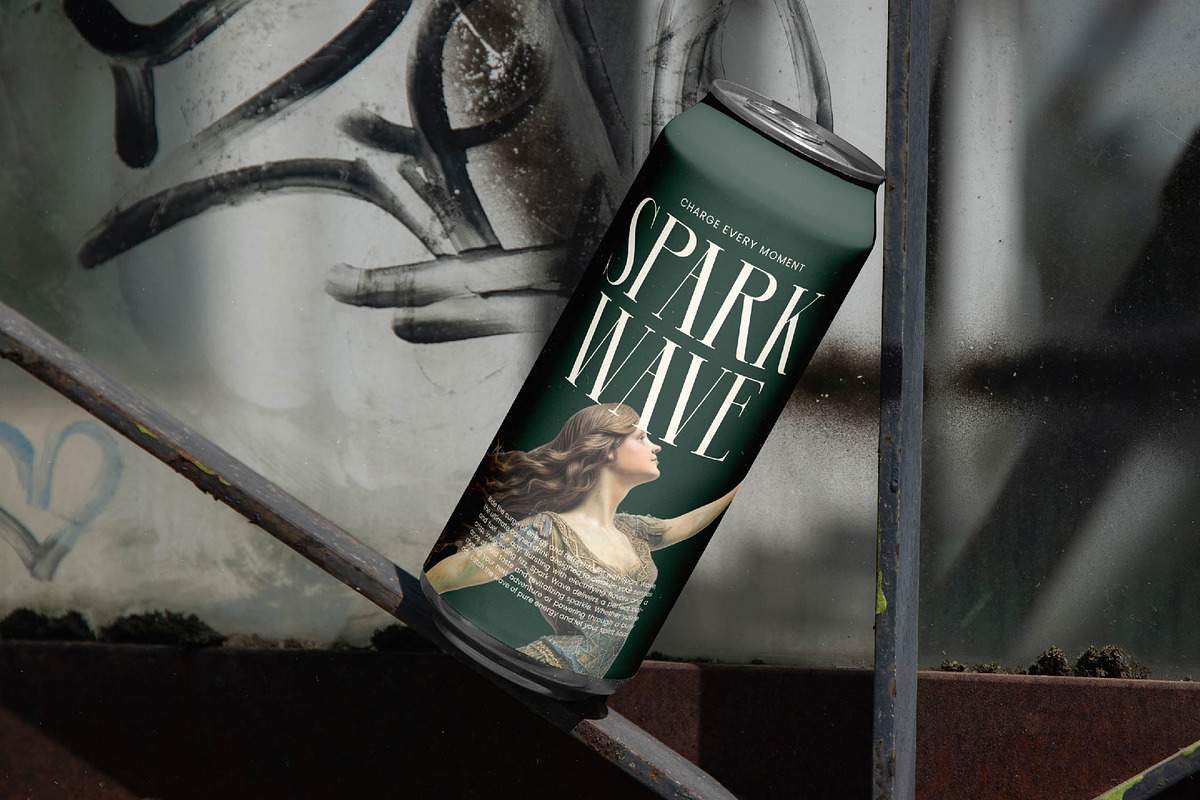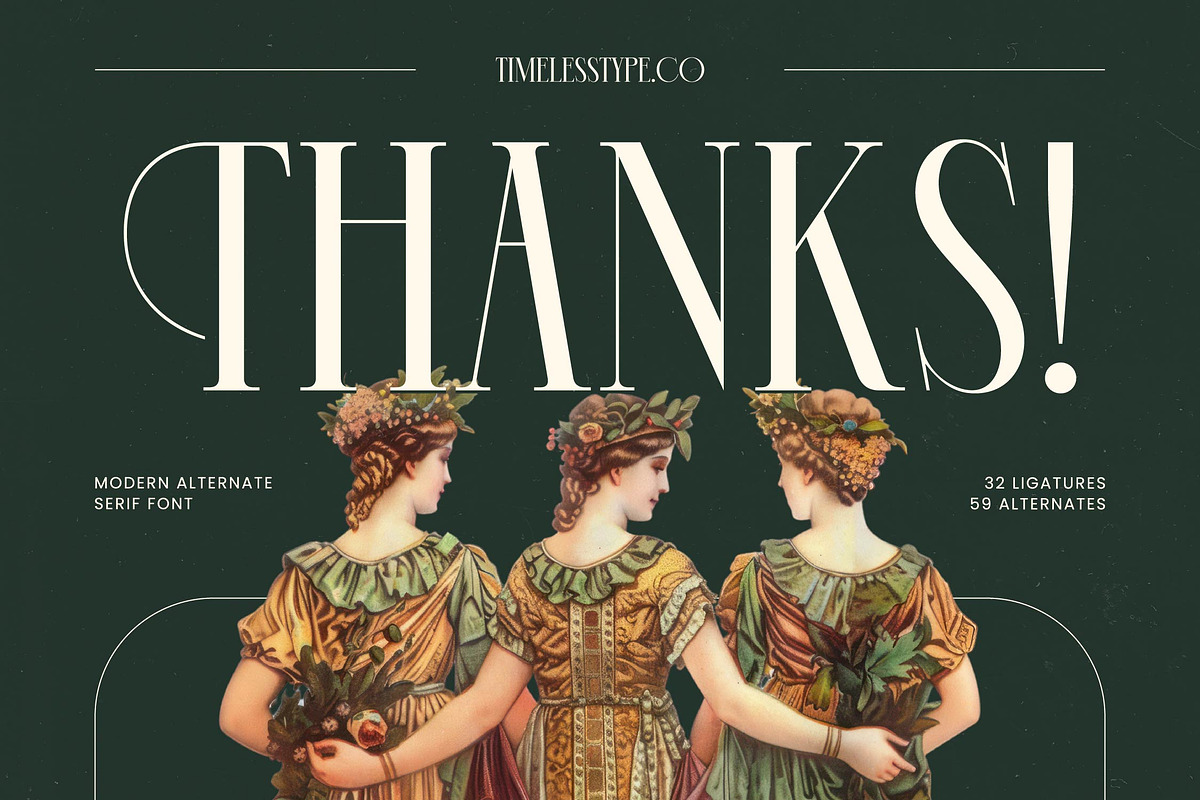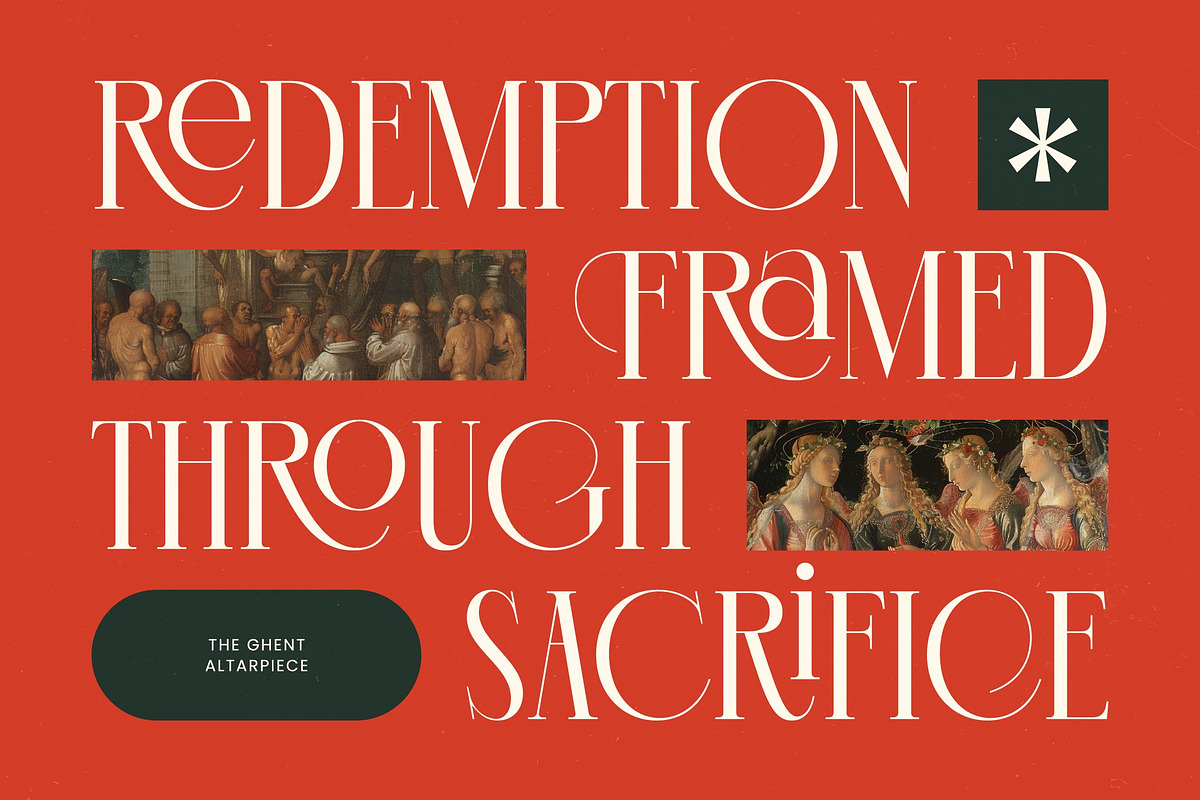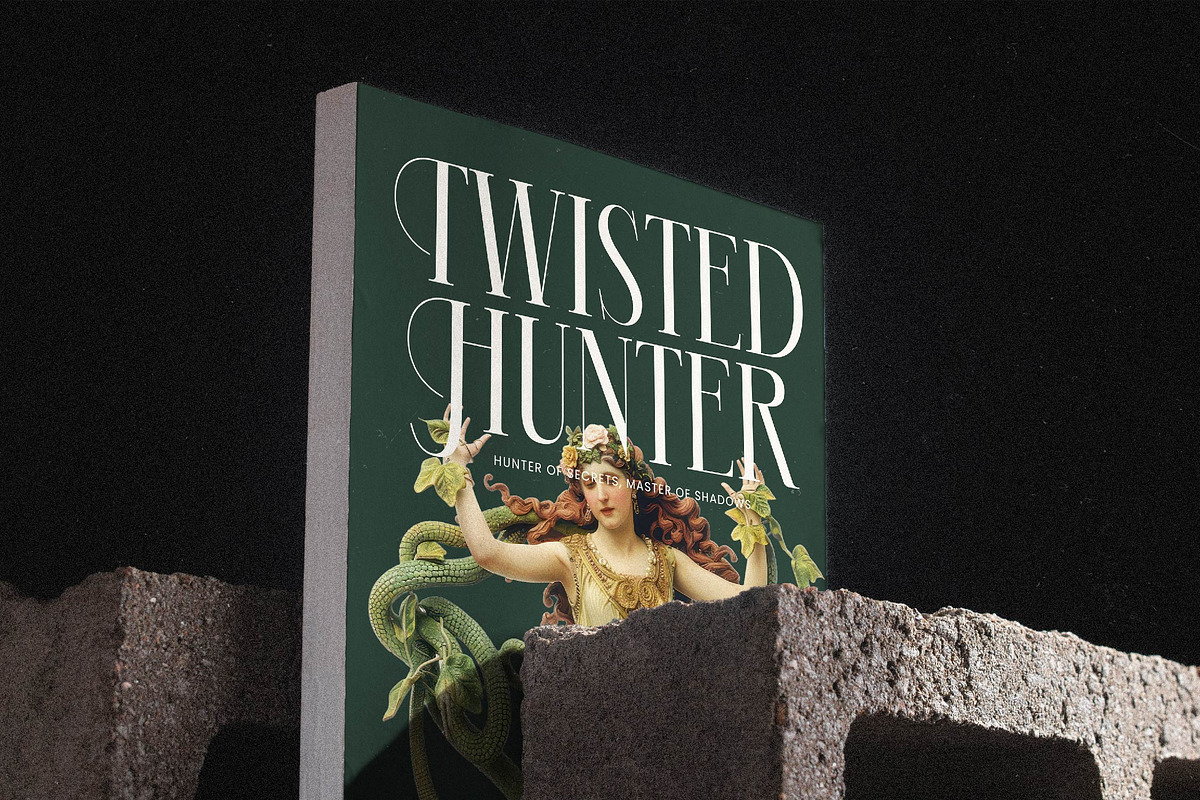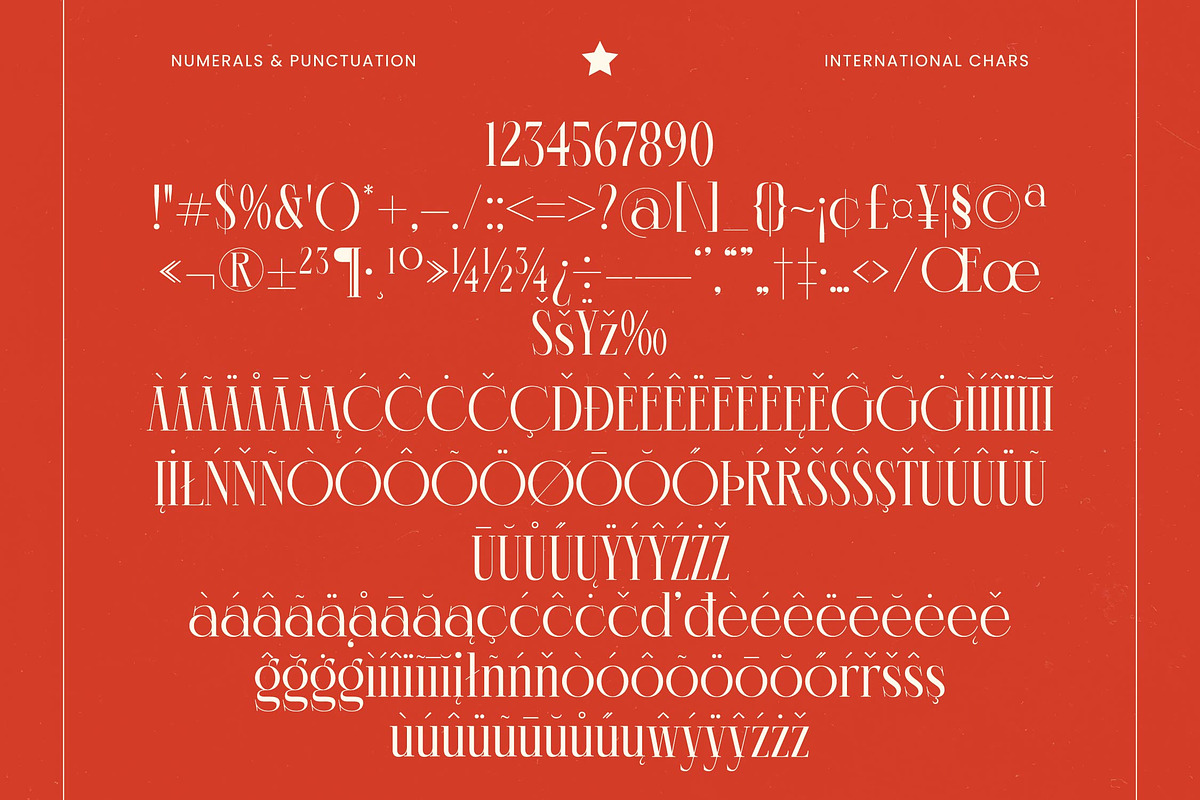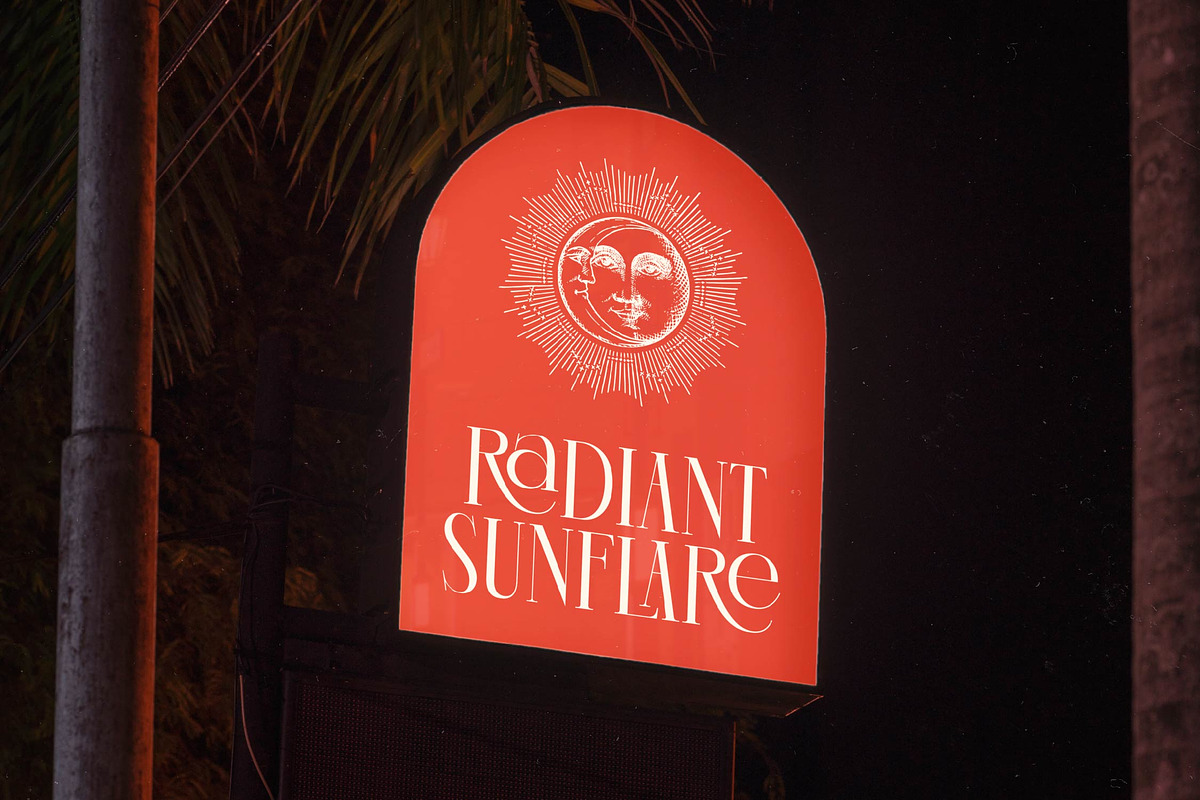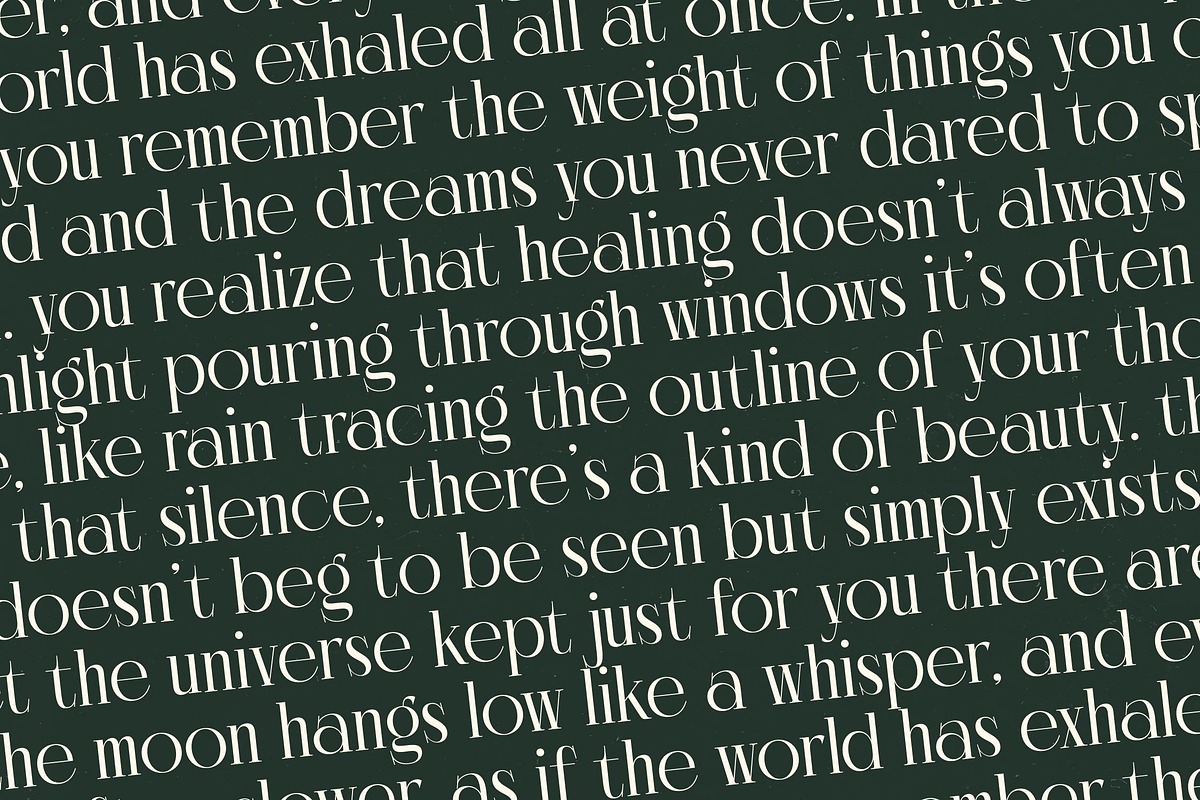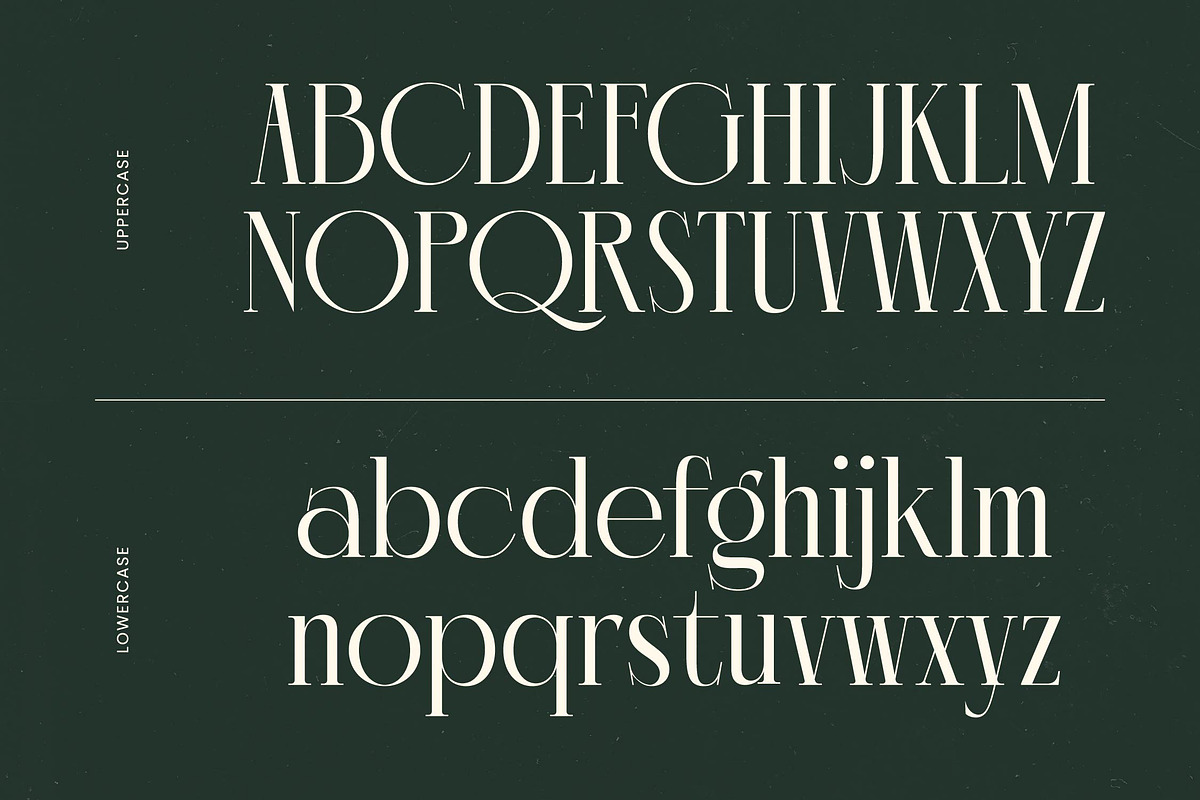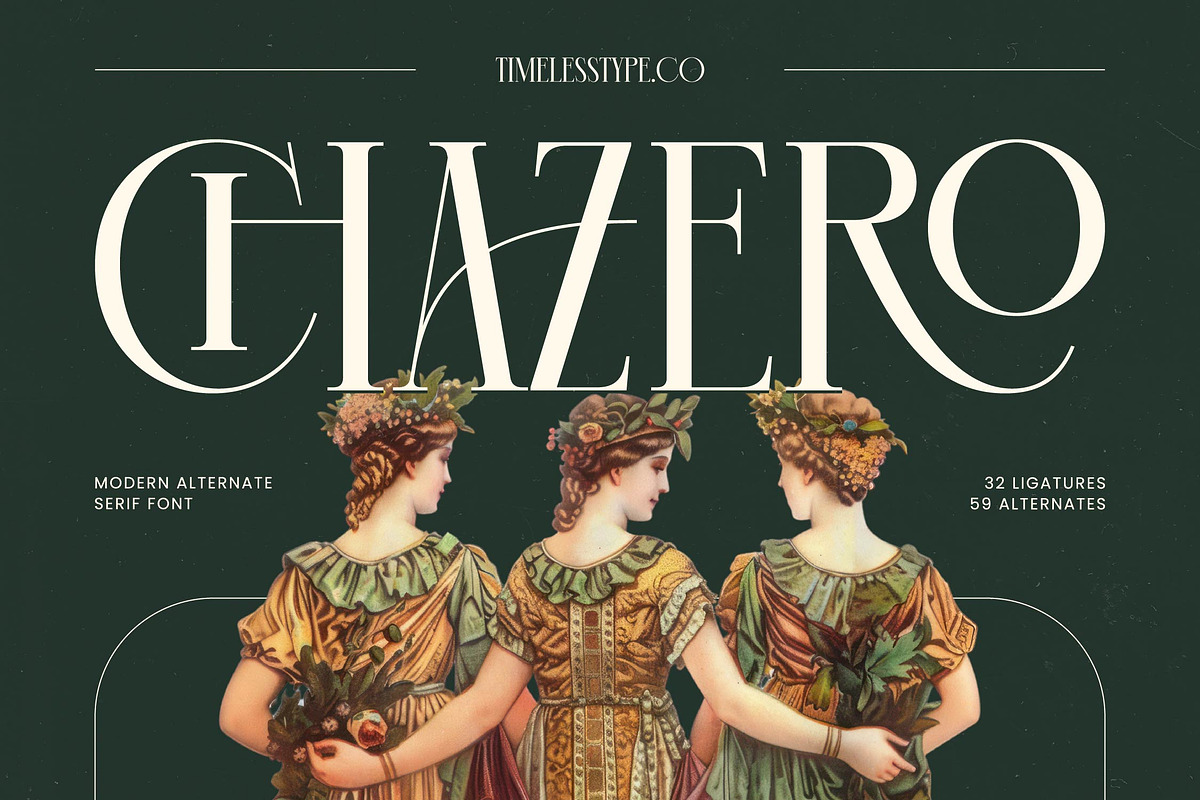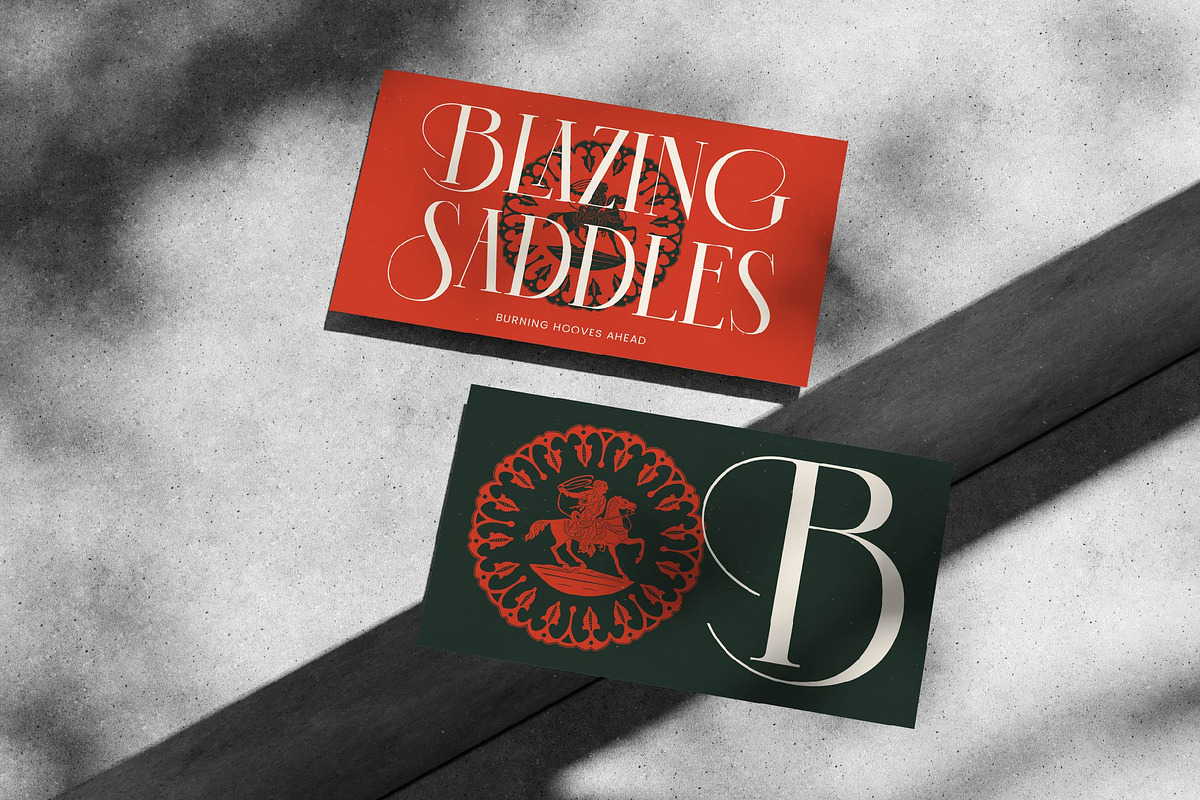
Chazero Modern Alternate Serif
Elevate your creative vision with Chazero, a typeface that breathes life into every design with its sophisticated soul and timeless grace. This font is more than just characters; it is a statement of refined elegance for the discerning designer.
Drawing inspiration from the classical beauty of antiquity and the fluid lines of modern art, this typeface captures an ethereal balance between the old world and the new. It evokes an atmosphere of museum-quality curation, where every stroke feels intentional and storied.
Designed for maximum visual impact, this modern serif display offers a level of luxury typography that is rarely seen in standard collections. Its high-contrast serif details make it an essential editorial font for those seeking a powerful branding impact that resonates with premium audiences.
Perfectly aligned with the current modern serif trend, this typeface responds to the industry's demand for more editorial display fonts. It satisfies the craving for character-driven typography that breaks away from minimalism to embrace expressive, ornate details.
This versatile typeface is the ideal choice for high-end logo design and comprehensive branding projects that require a touch of class. From sophisticated editorial layouts and luxury packaging to romantic wedding stationery and avant-garde fashion magazines, it adapts seamlessly to premium contexts.
The package is rich with creative possibilities, including 32 unique ligatures and 59 stylistic alternates that allow for custom-tailored layouts. It also features beautiful swashes and full multilingual support with a comprehensive set of international characters for global reach.
- Ligature 32 Alternate 59